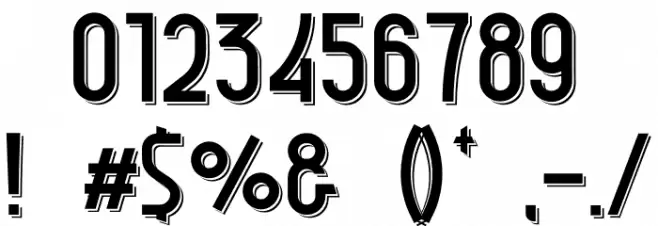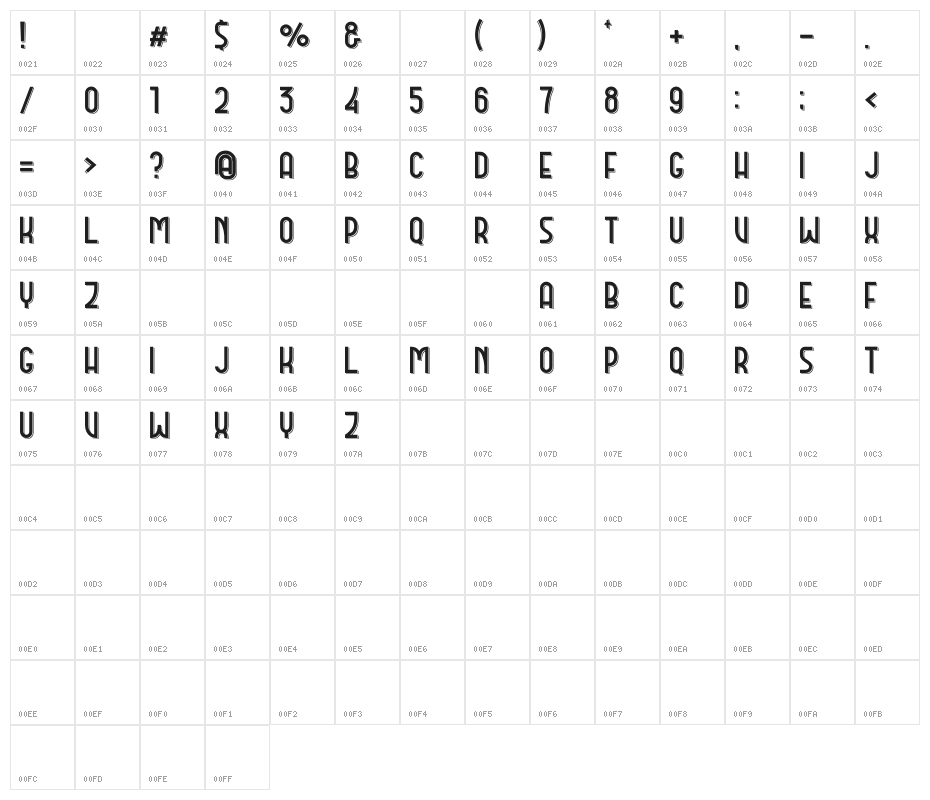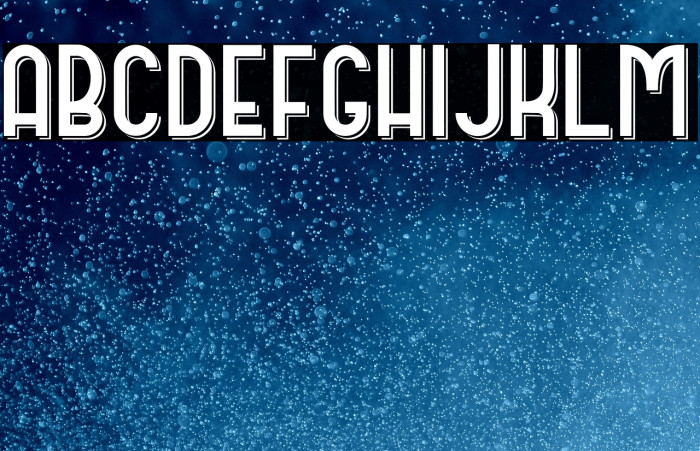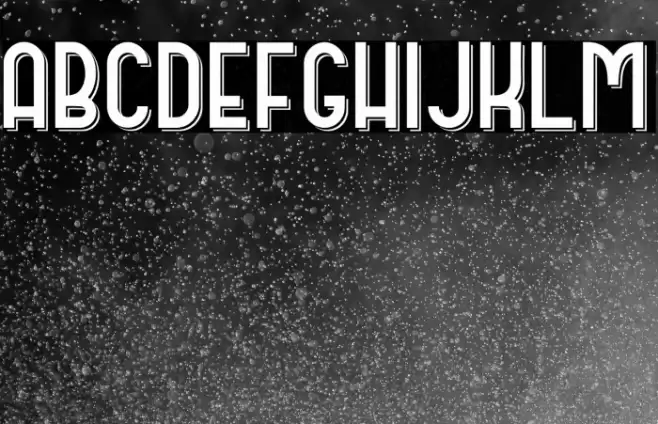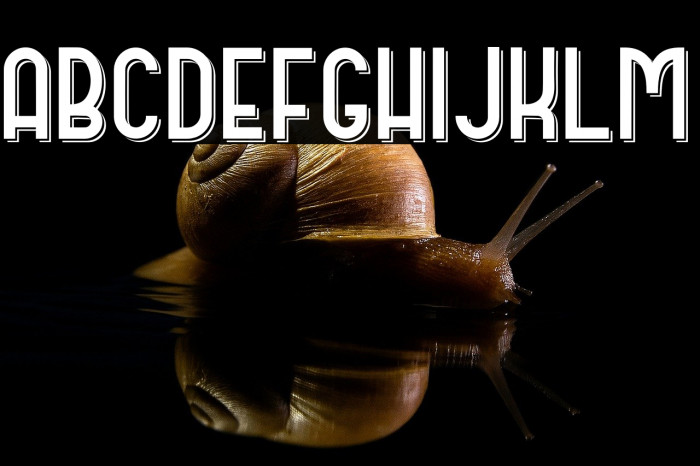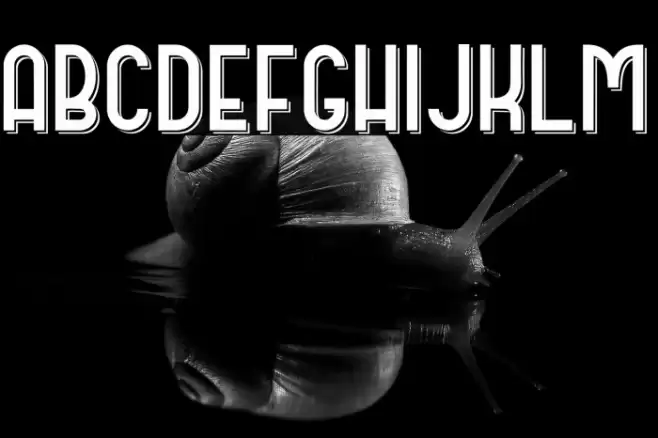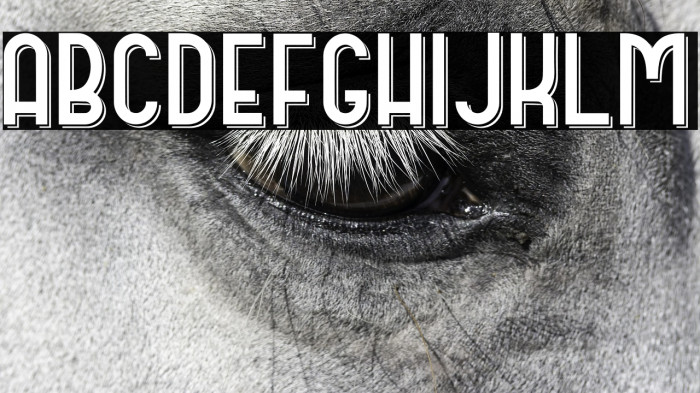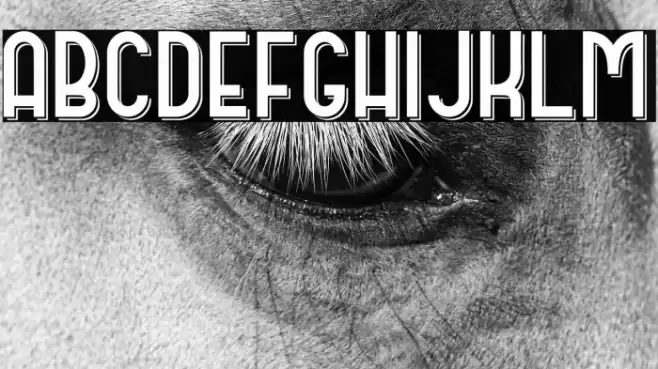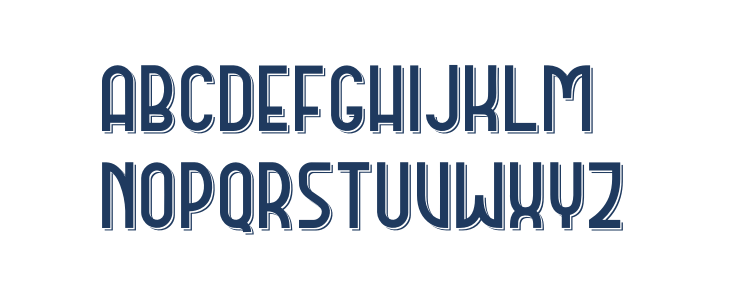
DOMCO 02 Font
DOMCO 02 Description
This font features a bold, geometric design with a strong presence. The characters are uppercase and have a distinct, modern look with a slight retro touch. The strokes are consistent in width, giving it a uniform appearance. The font includes numbers and a variety of special characters, making it versatile for different uses. The letters have a slight shadow effect, adding depth and dimension. The overall style is clean and structured, making it suitable for attention-grabbing headlines and logos.
Proposed ProjectsIdeal for branding, posters, and signage where a strong visual impact is needed.